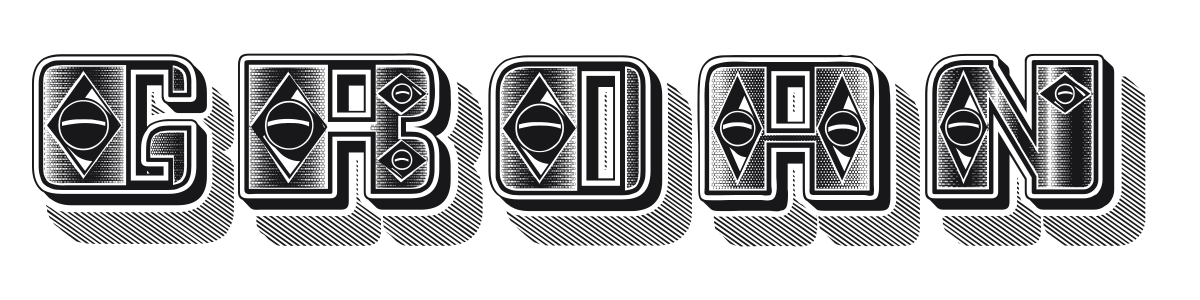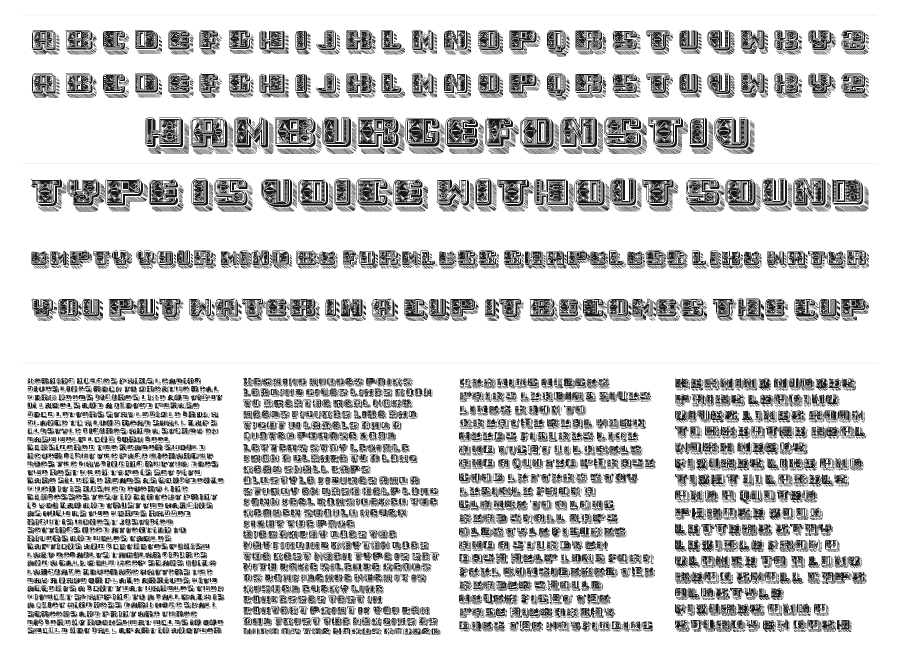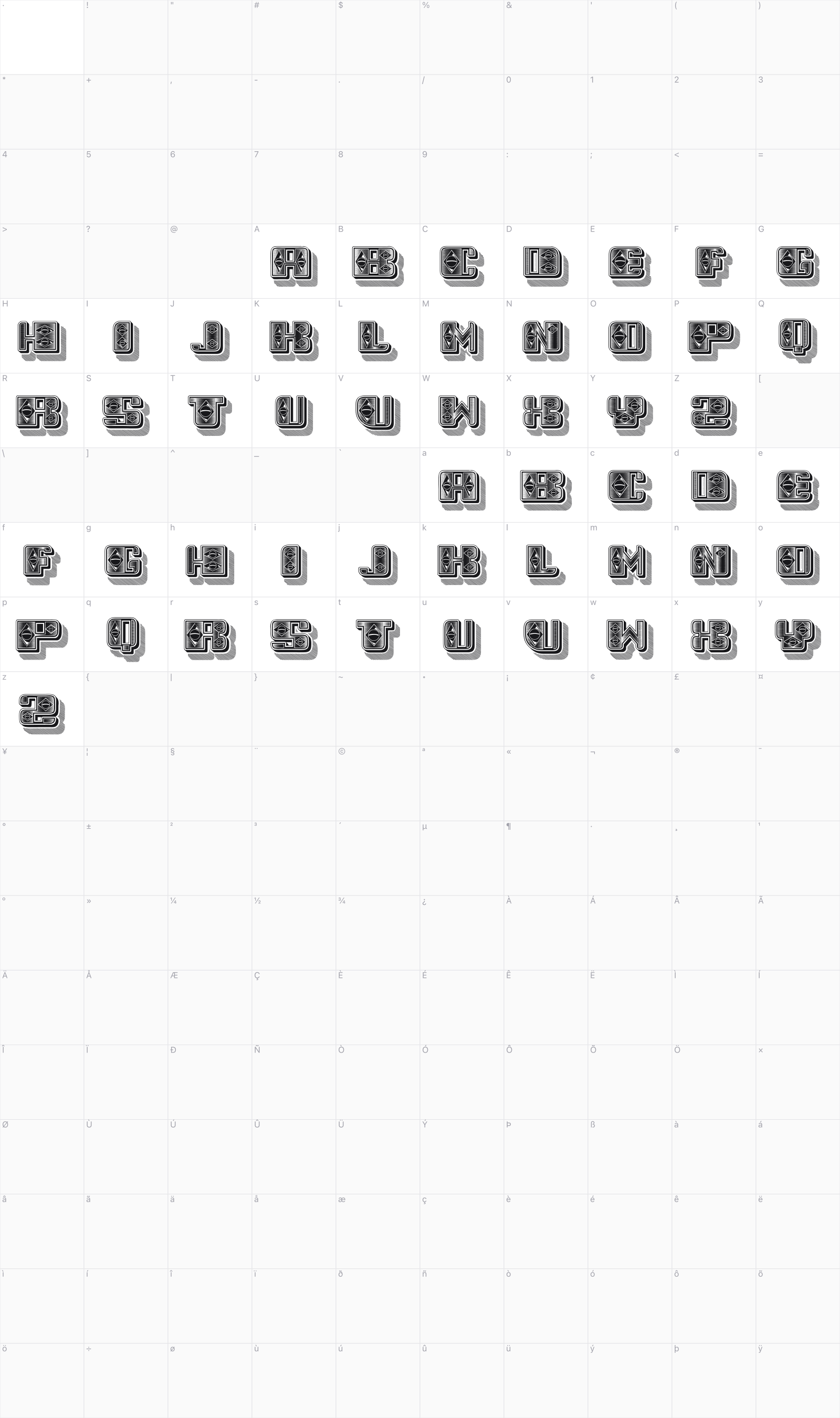
Groan
Groan is a heavy retro display font built from multiple decorative layers: a bold rounded outline, an engraved interior pattern, and a cast drop shadow. The combination gives each character a chunky three-dimensional presence reminiscent of vintage fairground signs or 1970s American lettering. It commands attention at large sizes and suits projects that need nostalgic swagger.